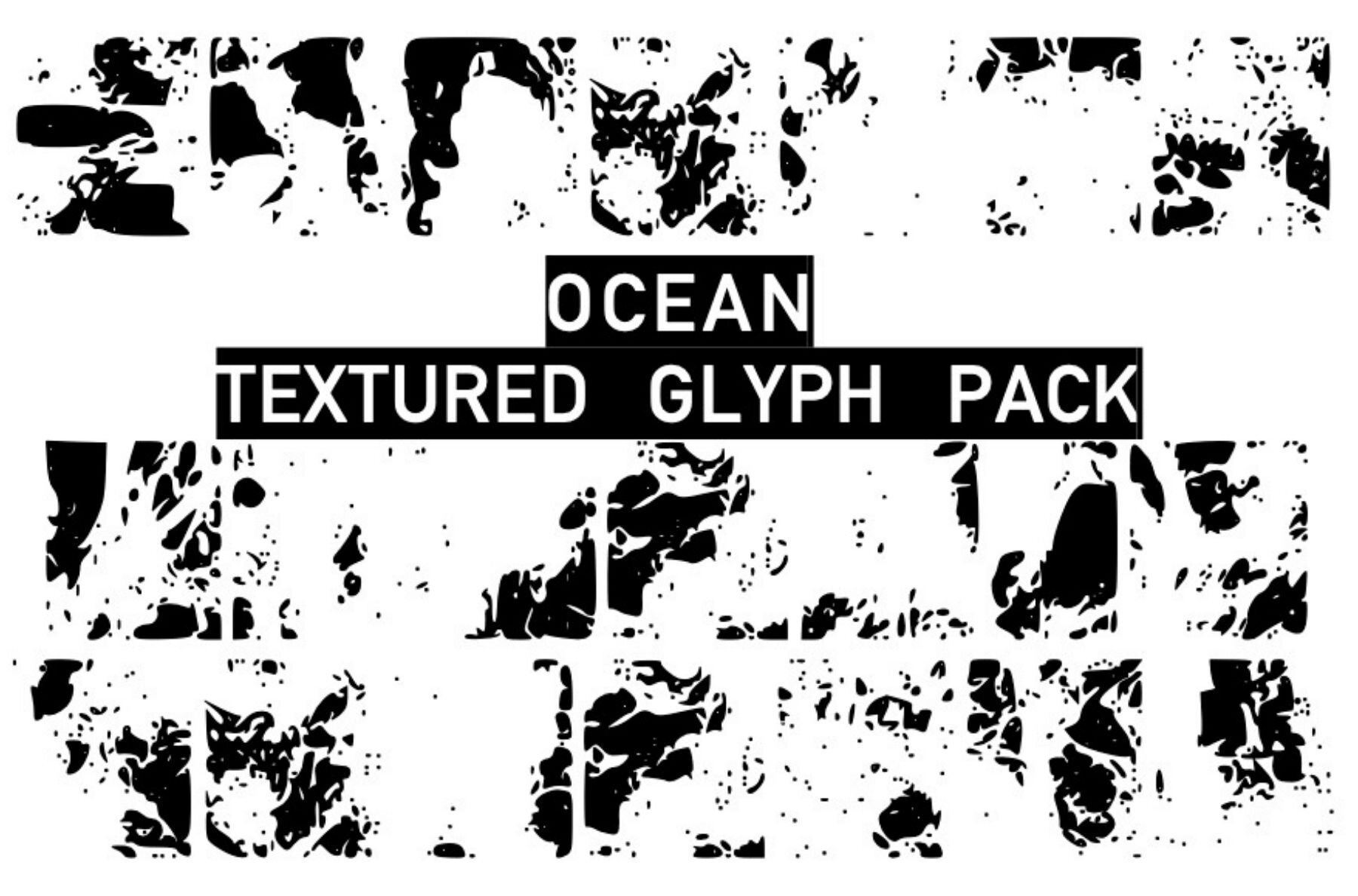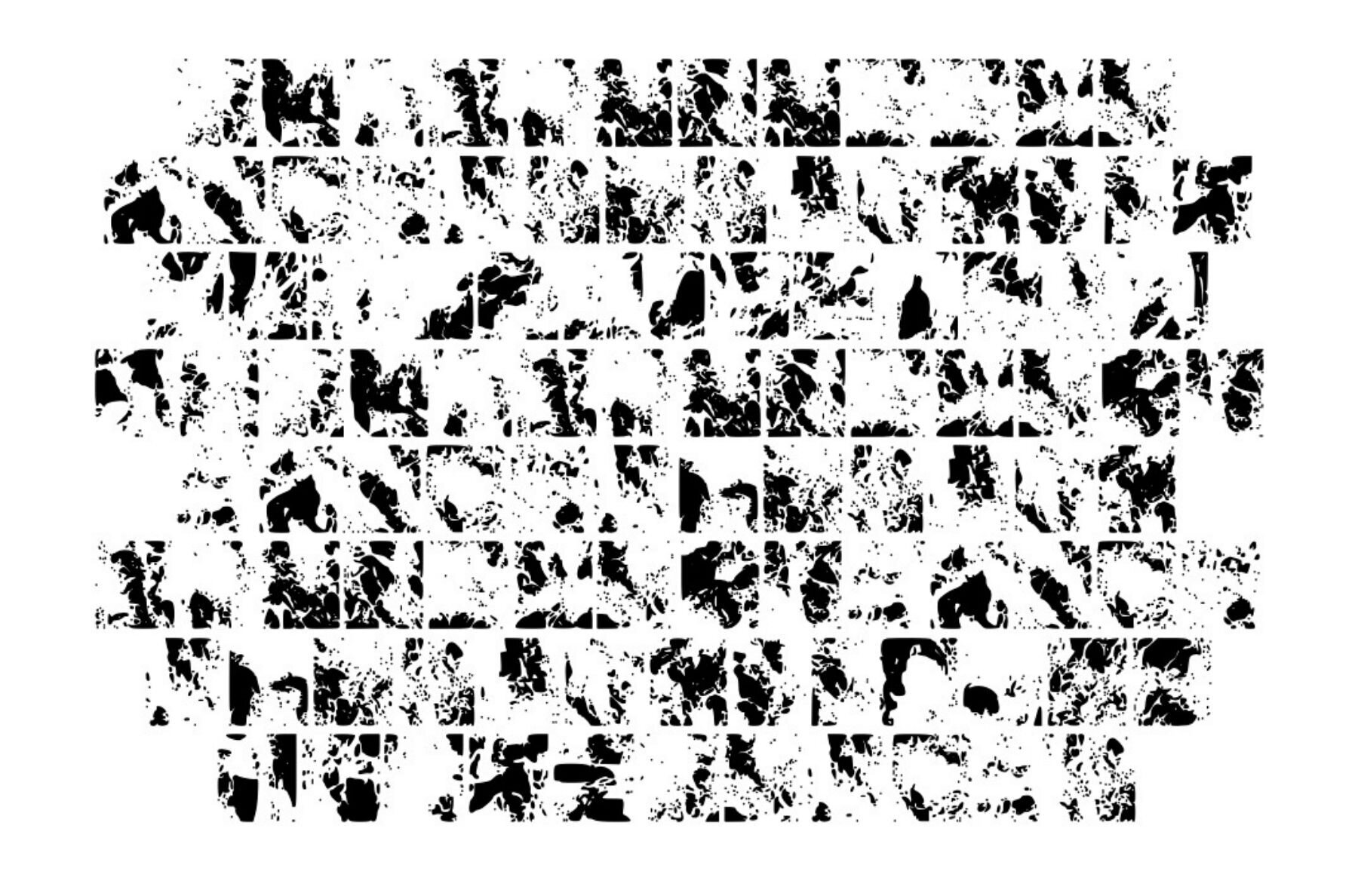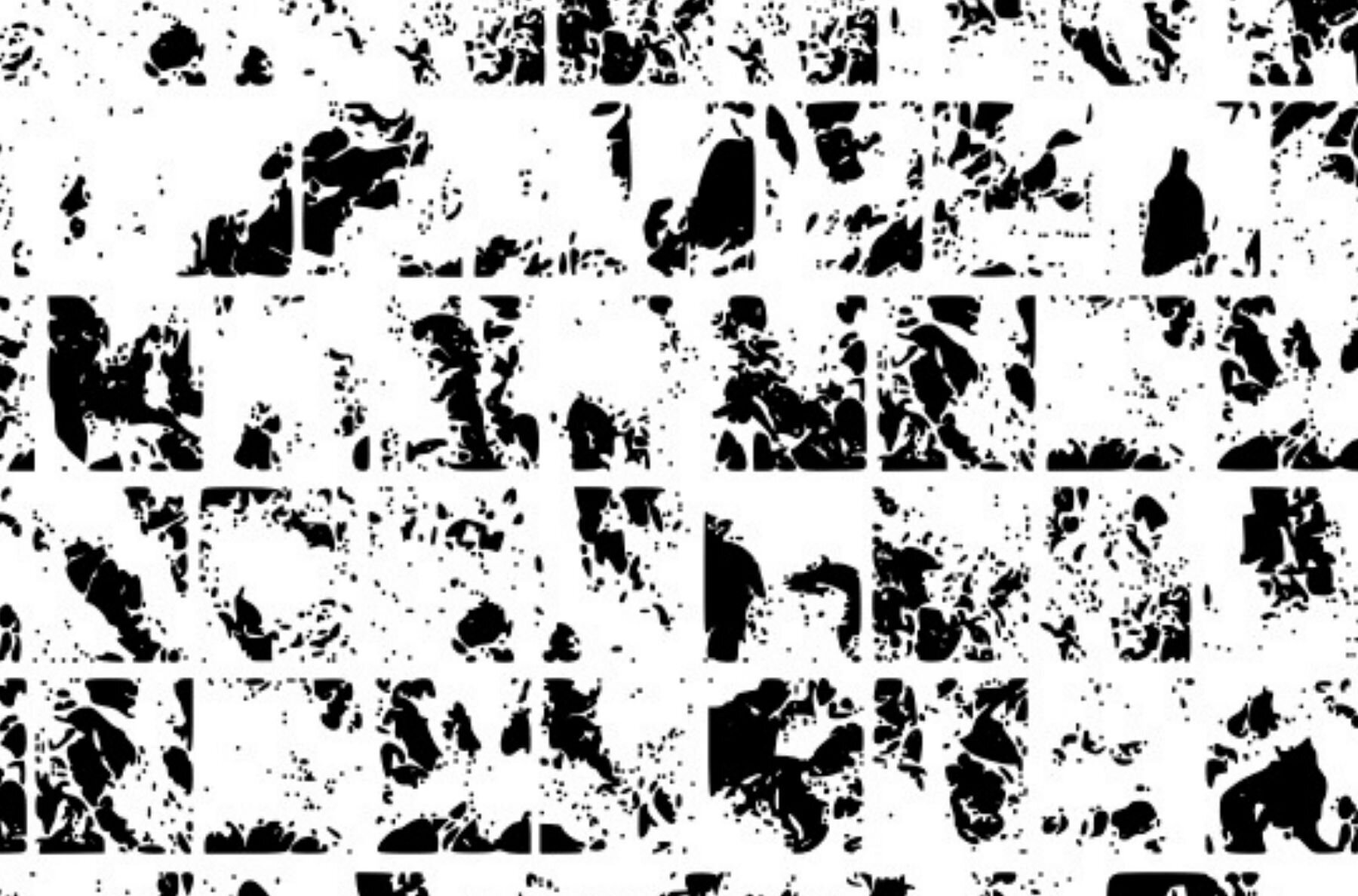
Texture Ocean Font
Texture Glyph Ocean
Dive into design with Texture Ocean, a comprehensive collection of glyphs offering a stunning array of ocean-inspired textures. Ideal for elevating natural designs and bringing creative projects to life, this pack offers a wealth of resources that seamlessly integrate into your work.Texture Ocean: Ocean Textured Glyphs